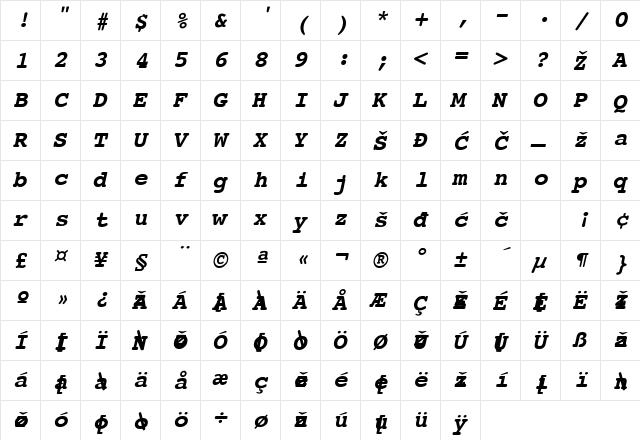
CourierYU Bold-Italic Font Preview
Design Context for CourierYU Typeface
CourierYU uses fixed-width spacing throughout, giving it the structured, systematic character associated with coding environments and technical documentation. The dynamic lean of this cut emphasises speed and emphasis in any layout. Its bold stroke weight gives it real presence on the page.